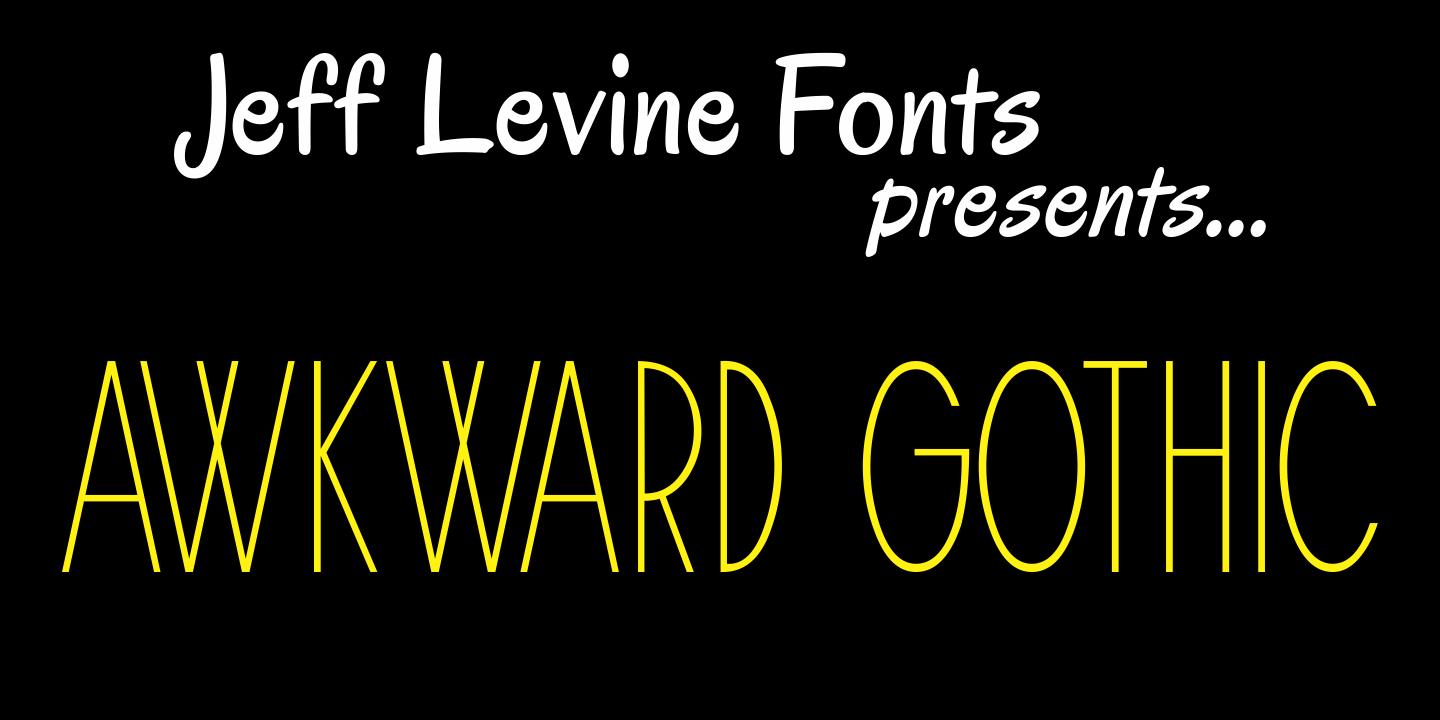
Awkward Gothic
Awkward Gothic JNL gets its name from the fact that it's a non-conformist alphabet - as if rendered by hand by a school child or an amateur lettering artist.
Although there is a relative symmetry to most of the letter forms, some unconventional widths and the shape of many of its characters adds to the hand-made look of this alphabet.
Awkward Gothic by Jeff Levine Fonts